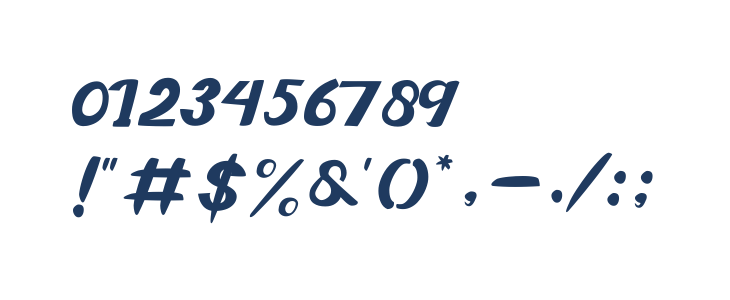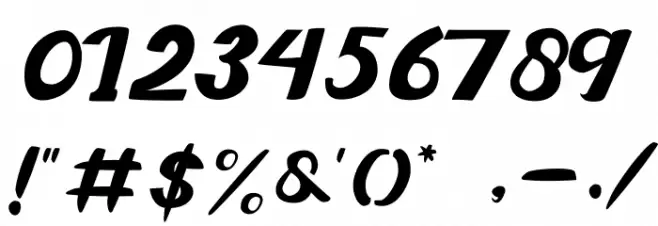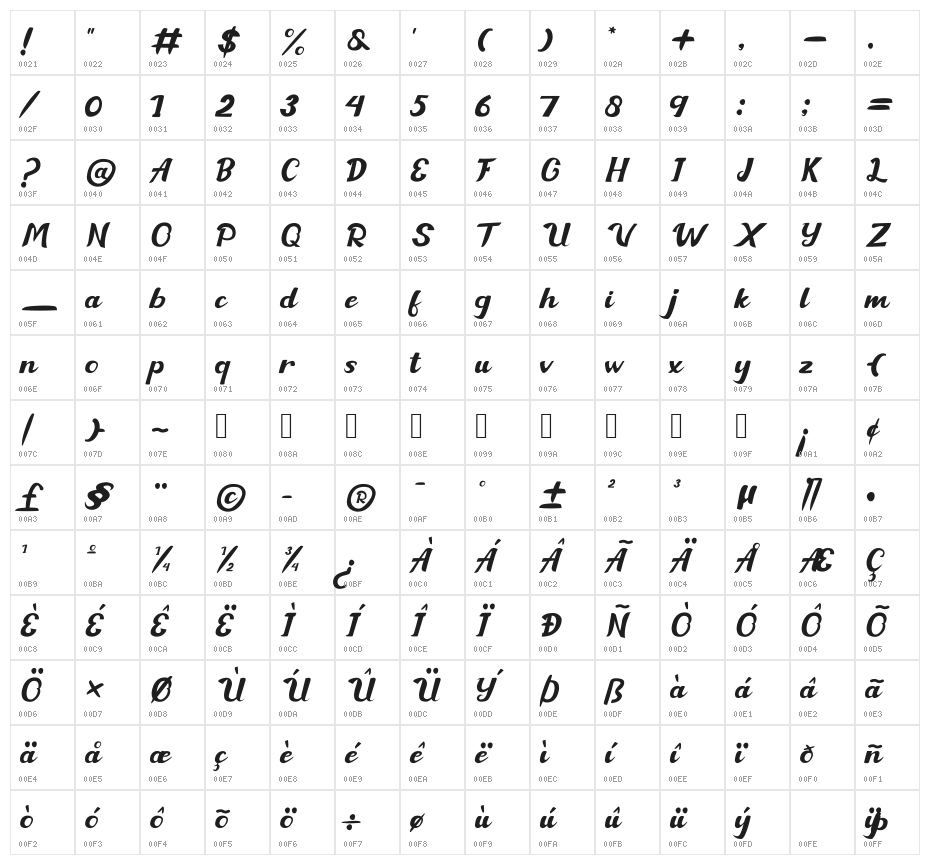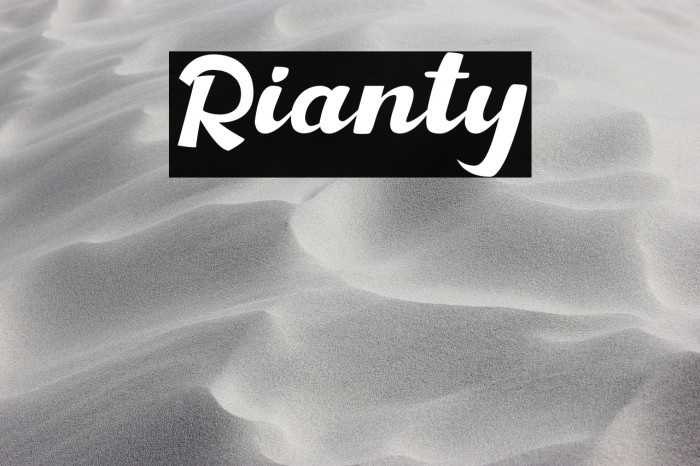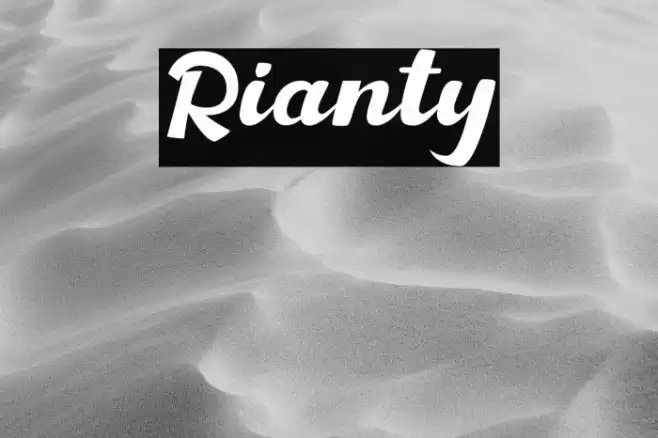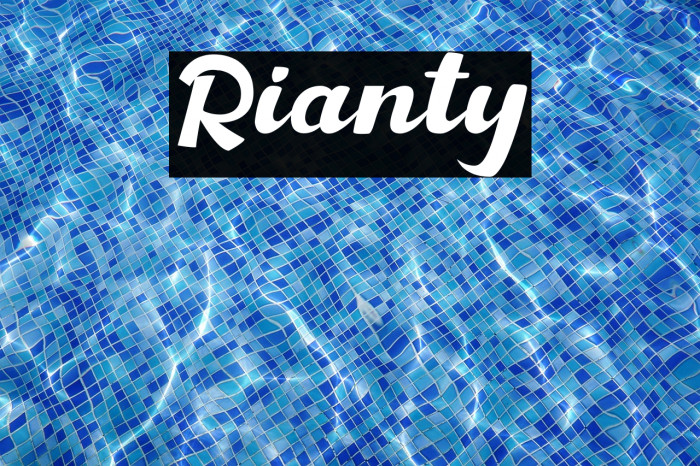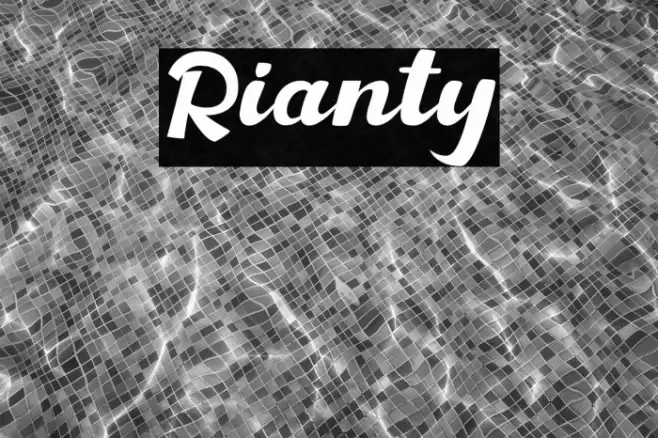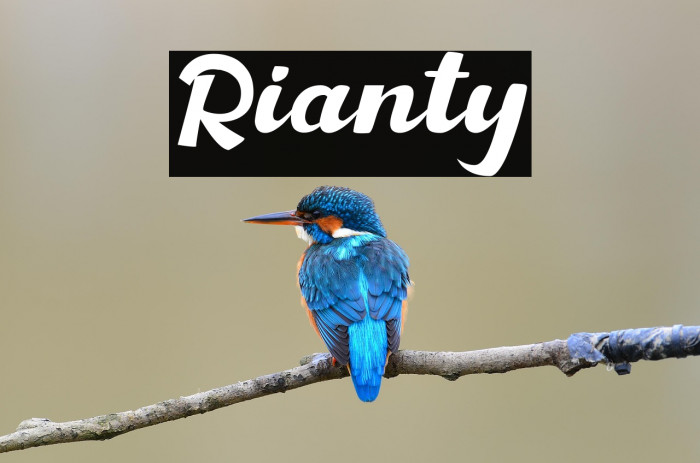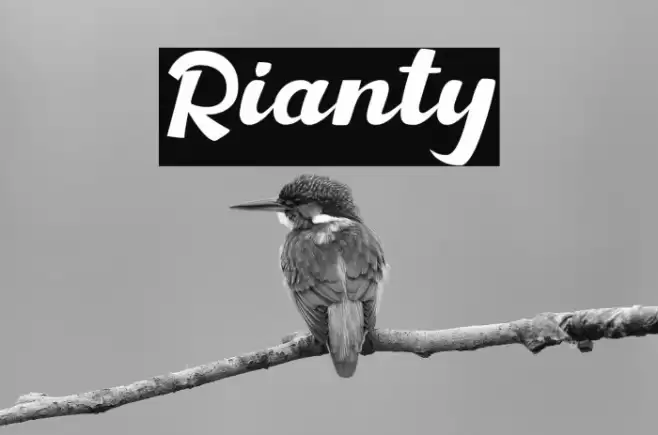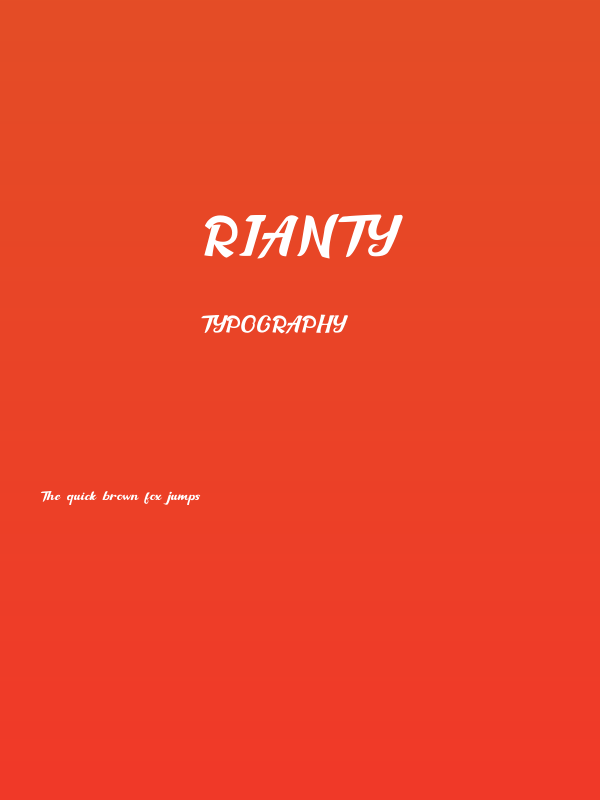
Rianty Font
Rianty Description
This font features a dynamic and flowing script style, characterized by its elegant curves and smooth transitions between letters. The uppercase letters have a distinctive slant, adding a sense of movement and sophistication. The lowercase letters are equally fluid, with a consistent stroke width that maintains readability while conveying a sense of grace. The numerals are bold and slightly rounded, complementing the overall style. Special characters are designed with the same attention to detail, ensuring they integrate seamlessly with the alphabet. This font is ideal for projects that require a touch of elegance and flair.